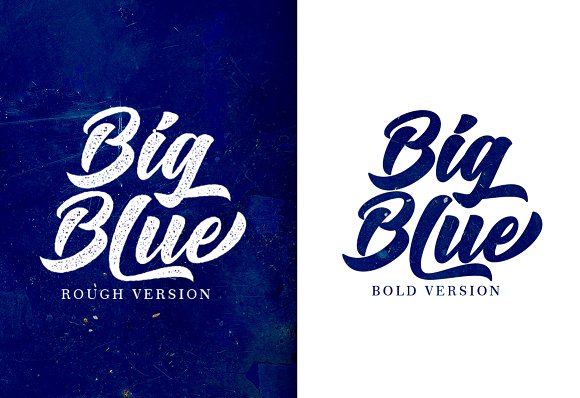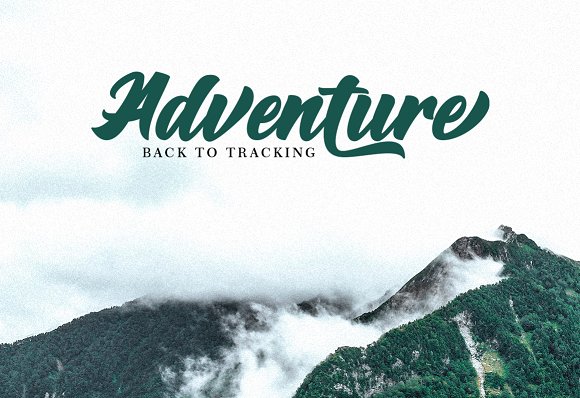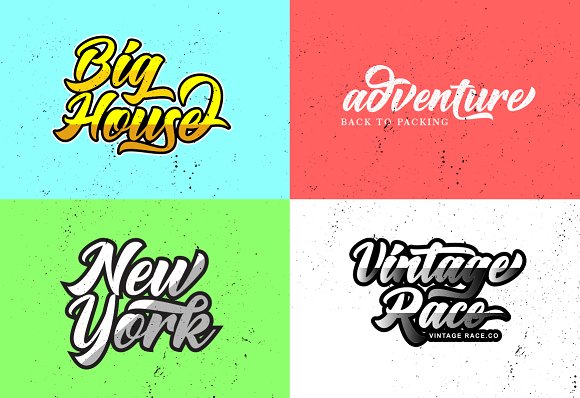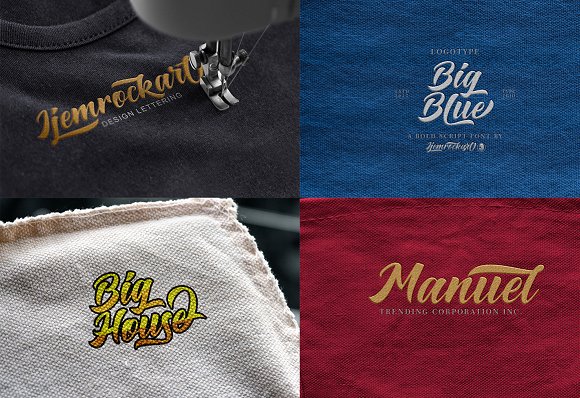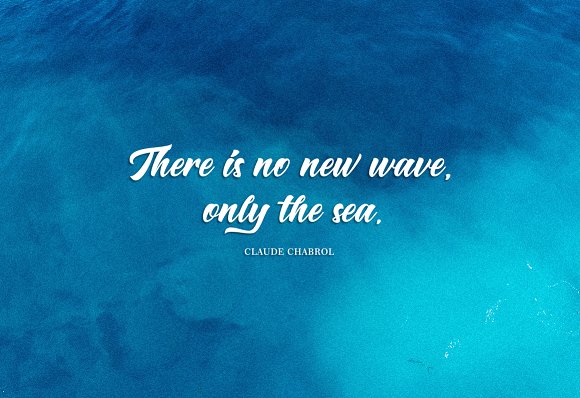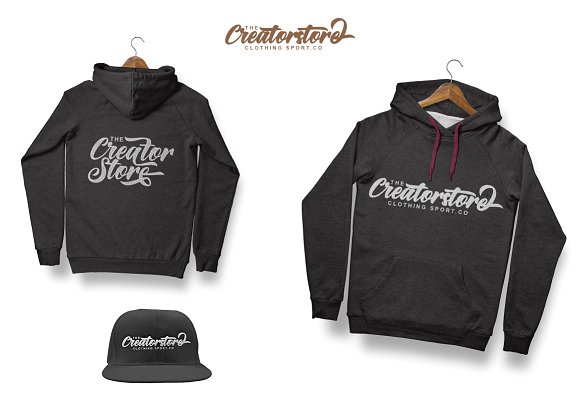
Introducing Big Blue Font: A Delicate Hand-Brushed Typographic Marvel
In the realm of typography, few fonts manage to capture the essence of elegance and versatility as effectively as Big Blue. This delicately hand-brushed font has been making waves in the design community, and for good reason. Big Blue is not just a font; it’s a collection of three unique versions, each offering a distinct flavor of sophistication and style. Whether you’re a seasoned designer or a crafting enthusiast, Big Blue has something to offer.
The Big Blue Family: Three Unique Versions
Big Blue comes in three distinct versions, each with its own character and charm. These versions are Big Blue Script, Big Blue Bold, and Big Blue Rough. Together, they provide a versatile toolkit for any design project, allowing for a range of expressions from elegant and refined to strong and textured.
Big Blue Script – Elegance in Motion
Big Blue Script is the epitome of clean, elegant handwritten typography. This version of Big Blue exudes a sense of refinement and poise, making it perfect for projects that demand a touch of sophistication. From wedding invitations to high-end brand logos, Big Blue Script brings a level of class and elegance that is hard to match. Its clean lines and fluid strokes make it highly readable, ensuring that your message is conveyed with both style and clarity.
Big Blue Bold – Making a Statement
For projects that require a bit more punch, Big Blue Bold steps up to the plate. This version maintains the elegant feel of its script counterpart but with a stronger, more assertive presence. Big Blue Bold is ideal for headlines, banners, and any design element that needs to stand out without sacrificing the elegance and charm of a handwritten font. It’s a powerful way to make a statement, adding a dynamic flair to your designs.
Big Blue Rough – Adding Texture and Character
Big Blue Rough brings a tactile, organic feel to the Big Blue family. This version features a texture of rough imperfections, giving it a uniquely hand-crafted look. Big Blue Rough is perfect for designs that aim to evoke a sense of authenticity, craftsmanship, or nostalgia. It’s ideal for use in backgrounds, textures, or any design element where a bit of grit and character is desired. The rough texture adds depth and interest, making your designs more engaging and memorable.
Why Choose Big Blue Font?
So, why should designers and crafters choose Big Blue Font for their projects? Here are a few compelling reasons:
- Versatility: With three unique versions, Big Blue offers a range of stylistic options to suit various design needs.
- Elegance: Each version of Big Blue maintains a level of elegance, making it suitable for high-end projects and designs that require a touch of sophistication.
- Readability: Despite their stylistic differences, all versions of Big Blue are highly readable, ensuring your message is conveyed clearly.
- Uniqueness: The hand-brushed quality of Big Blue, especially in the Rough version, adds a unique texture that can set your designs apart.
Using Big Blue Font in Your Projects
Incorporating Big Blue Font into your designs is straightforward. Here are a few tips to get you started:
- Pairing: Experiment with pairing Big Blue with other fonts to create interesting contrasts. Big Blue Script and Big Blue Bold work well with clean sans-serifs, while Big Blue Rough can add texture when paired with smoother fonts.
- Color: Take advantage of Big Blue’s versatility by using it in various colors. The font’s elegance shines through in metallic or pastel colors, while its boldness is accentuated in deeper, richer tones.
- Experimentation: Don’t be afraid to experiment with the different versions of Big Blue. Mixing and matching Big Blue Script, Bold, and Rough can lead to unique and captivating designs.
| Author | Ijem RockArt |
Big Blue Font is a remarkable addition to any designer’s toolkit. Its combination of elegance, versatility, and unique texture makes it an excellent choice for a wide range of projects. Whether you’re designing for luxury brands, crafting invitations, or creating art, Big Blue offers the flexibility and style to bring your vision to life. With its three distinct versions, Big Blue Font is poised to become a go-to font for designers and crafters looking to add a touch of sophistication and character to their work.